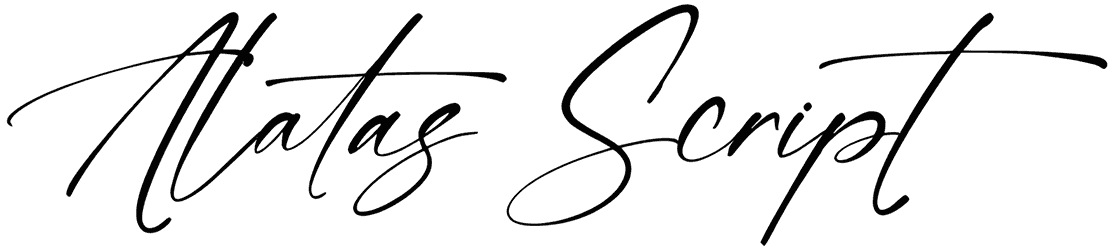
Alatas Script Font
Like a stylish signature of an artist, this handwritten font can reflect an elegant vibe. With a glance, your creative mind can give varied ideas to make beautiful designs. The Alatas Script font, as a cool member of the handwritten collection, is going to add a charming vibe to your designs. What is your opinion? Isn’t it refreshing?